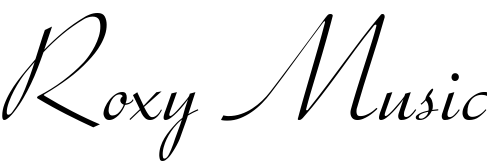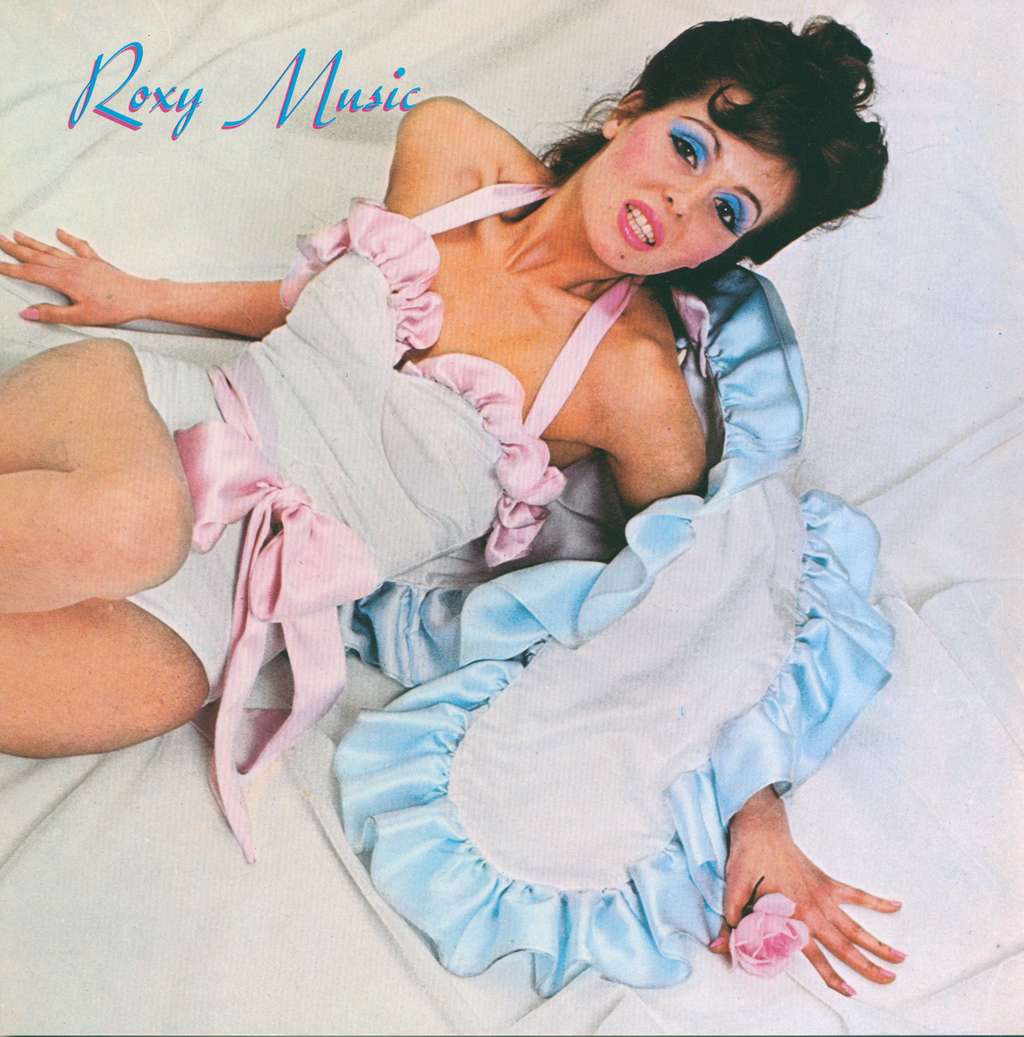
Roxy Music Font
Fonts in UseRoxy Music is a British art rock band that released their self-titled debut album in 1972, featuring a blend of avant-garde and pop influences that helped to define the glam rock era.